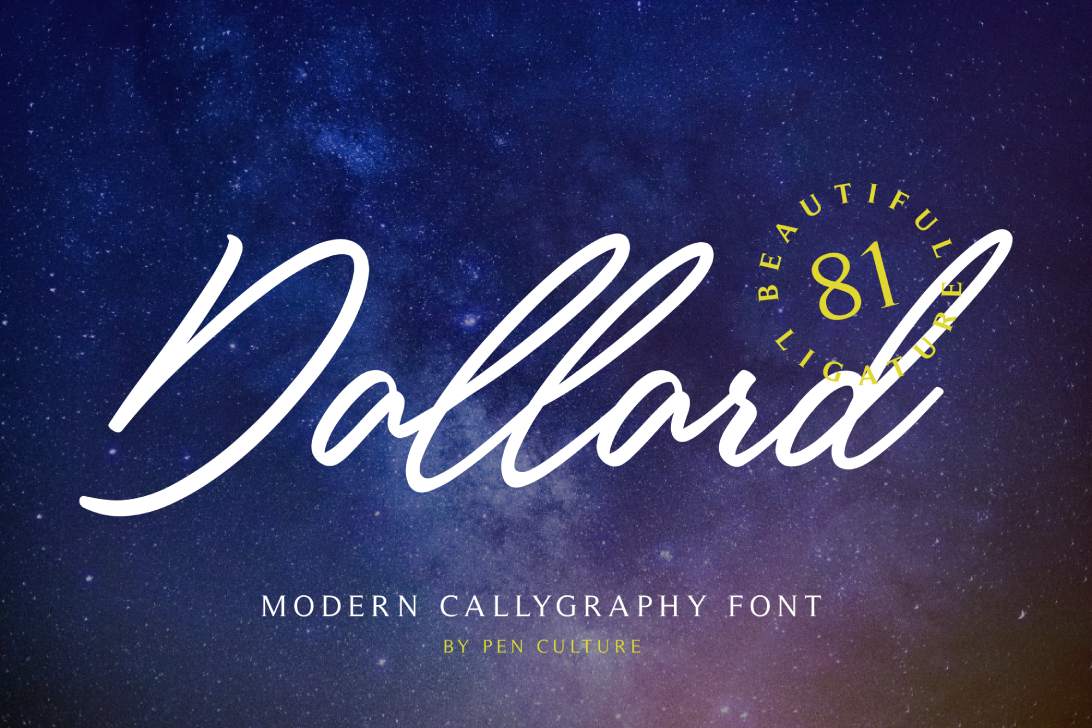
Dallard
let me show you my new font, a modern calligraphy original by me. Dallard fonts can be used in various uses such as watermarks, signature and signature logos, business cards, brand names, and many more.